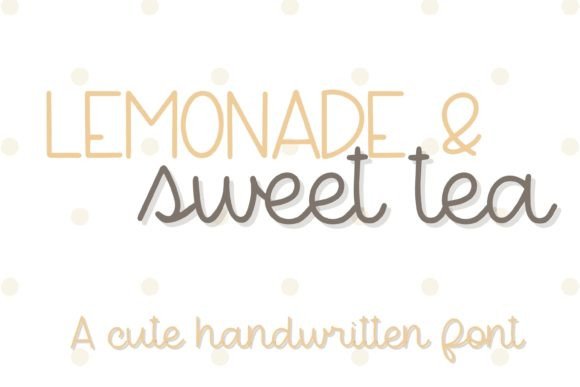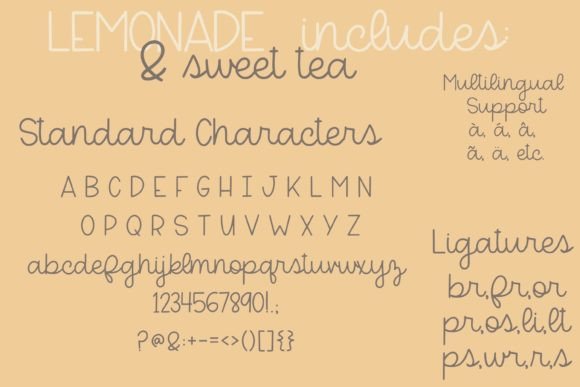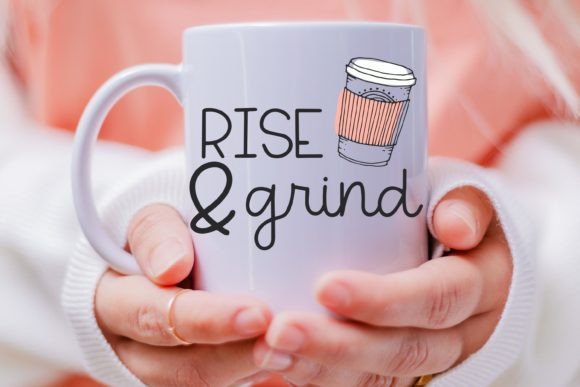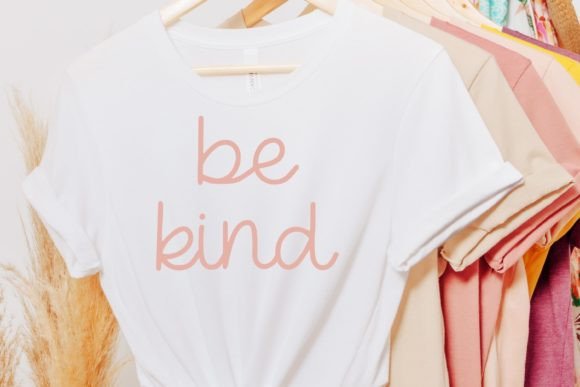
Lemonade & Sweet Tea Font
About the Lemonade & Sweet Tea Font
Crafted with precision, the Lemonade & Sweet Tea Font is ready to bring your ideas to life. Lemonade & Sweet Tea is an attractive script font that brings sweetness and kindness in the middle of it. Use this font for various design ideas such as mugs, t-shirt designs, logo designs, and many more. This font is PUA encoded which means you can access all glyphs and swashes freely!
This script font’s friendly, slightly informal style works best for headlines, short text blocks on branding materials, and packaging designs where a touch of sweetness is desired. It’s ideal for projects related to food, beverages, children’s products, or anything requiring a welcoming and approachable aesthetic. Avoid using it for body copy or lengthy paragraphs; its decorative nature makes it less legible for extended reading.
For optimal visual balance, pair Lemonade & Sweet Tea with a clean sans-serif like Open Sans for body text or a geometric sans-serif like Futura for a more modern feel. A simple serif font such as Lora could also create a sophisticated contrast, depending on the desired overall tone. Avoid pairing it with other highly decorative or overly stylized fonts to prevent visual clutter.
The font exudes a cheerful and approachable personality, making it unsuitable for projects demanding sophistication or seriousness. Its playful charm is best utilized in designs aiming for a friendly, lighthearted, and inviting impression.
Lemonade & Sweet Tea Font Usage Examples
Lemonade & Sweet Tea Font Example